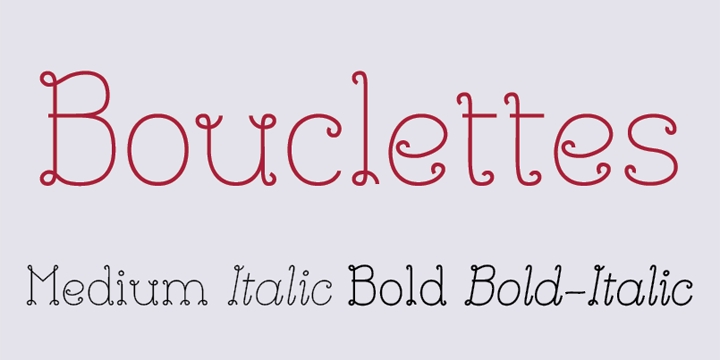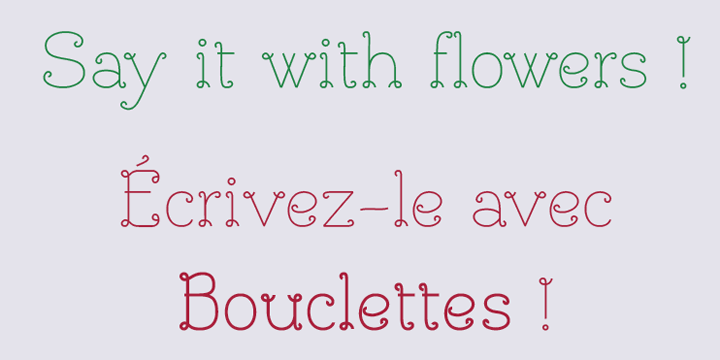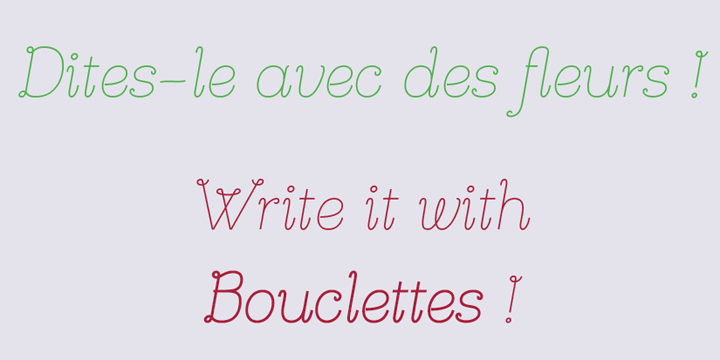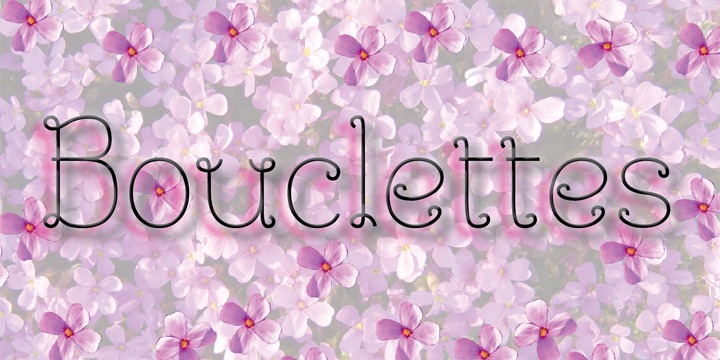
Bouclettes font family
Bouclettes – Decorative Funny Serifs for Spring
Bouclettes is a decorative typeface family with funny and original serifs. It creates a casual and playful vibe to your documents : magazines, brochures, flyers, advertising, greeting cards, logotypes.
The combination between the two weights and italics is very interesting to work with Bouclettes. It looks better in large sizes.
Bouclettes Medium
Bouclettes Italic
Bouclettes Bold
Bouclettes Bold Italic